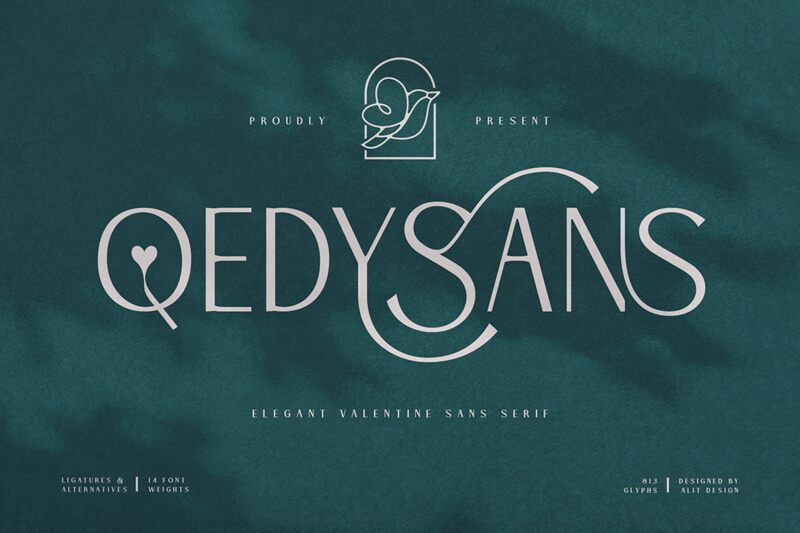
Qedysans is a captivating sans serif font that effortlessly blends modern elegance with timeless simplicity. Designed by the acclaimed Alit Design studio, this font exudes a harmonious balance of sharp edges and gentle curves, creating a visually striking and refined aesthetic.
The clean, uncluttered letterforms convey a sense of sophistication, making Qedysans an ideal choice for a wide range of design applications, from editorial layouts and branding to digital interfaces and packaging.
With its versatile appeal, Qedysans can seamlessly transition between formal and casual contexts, lending a distinctive touch of sophistication to any project.